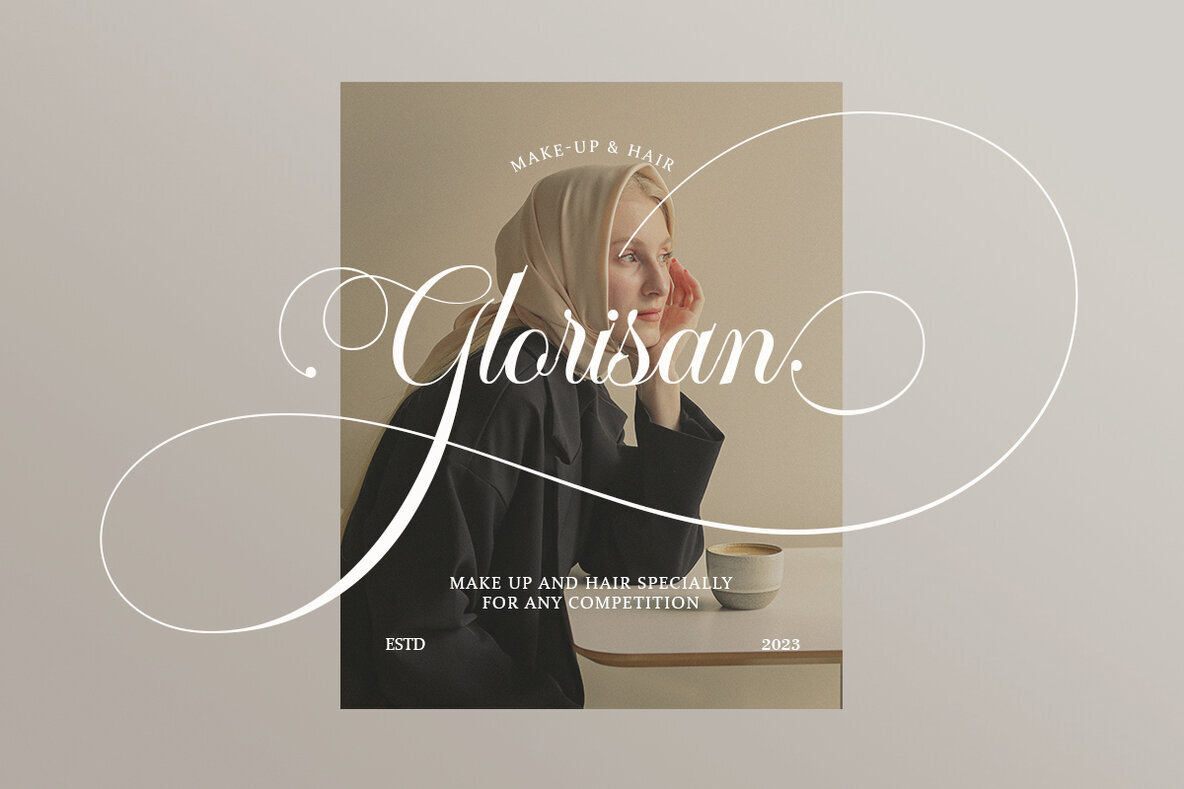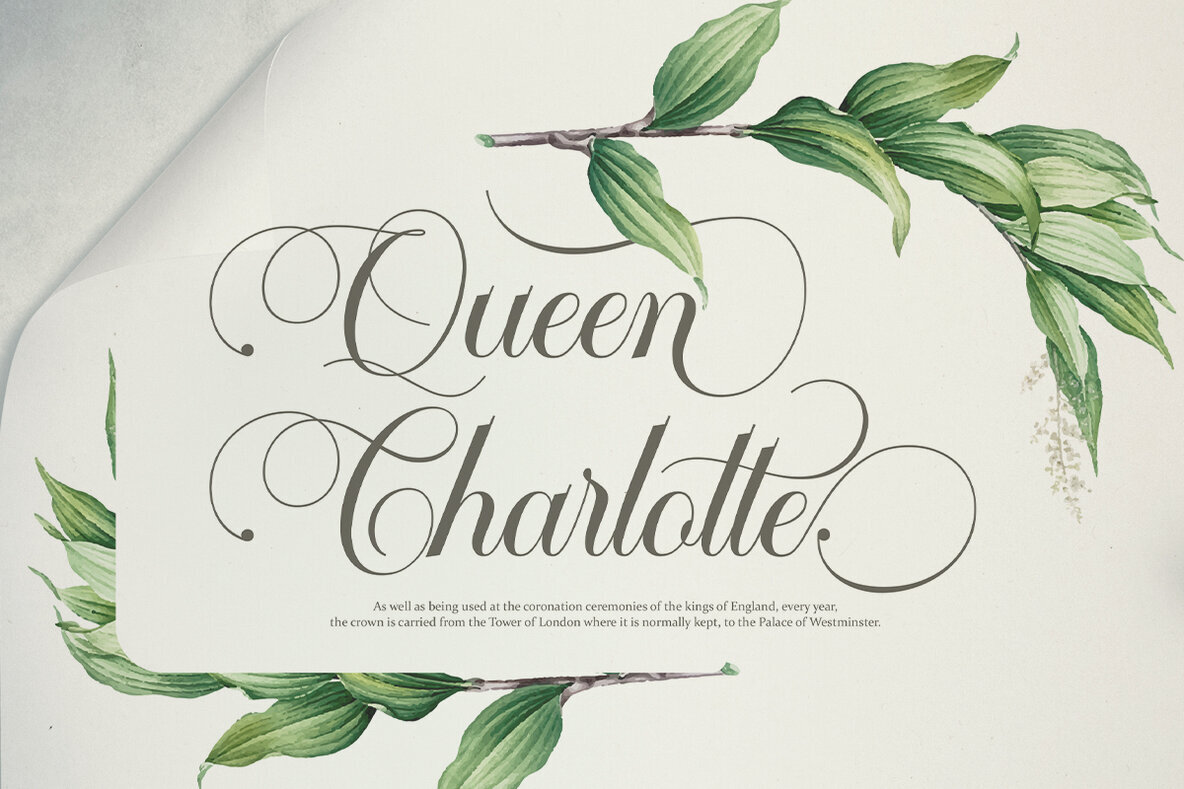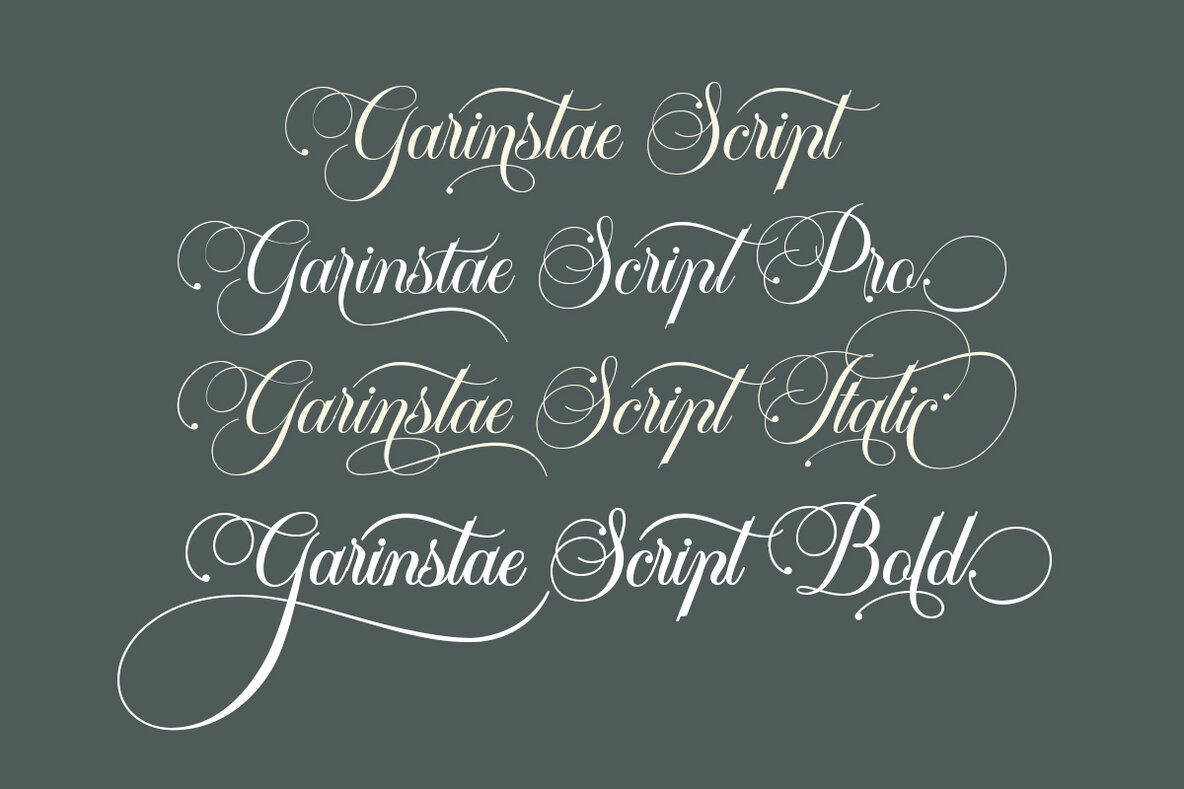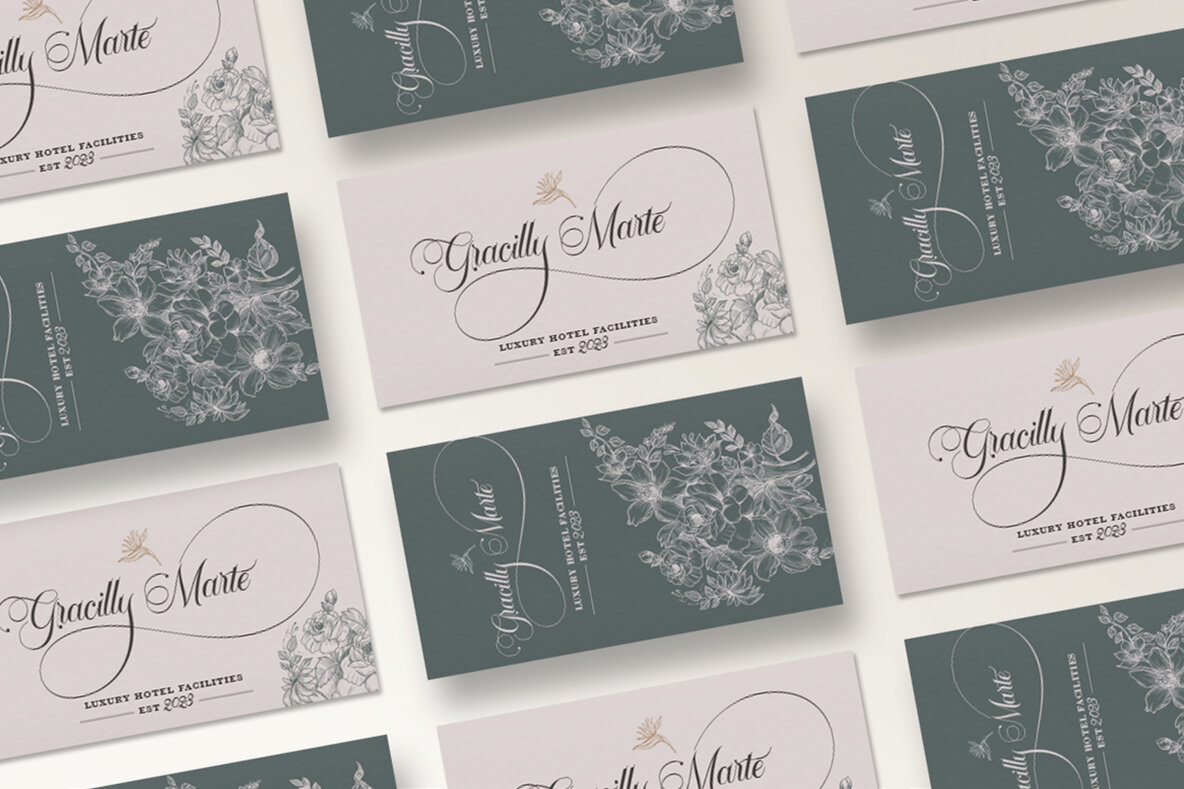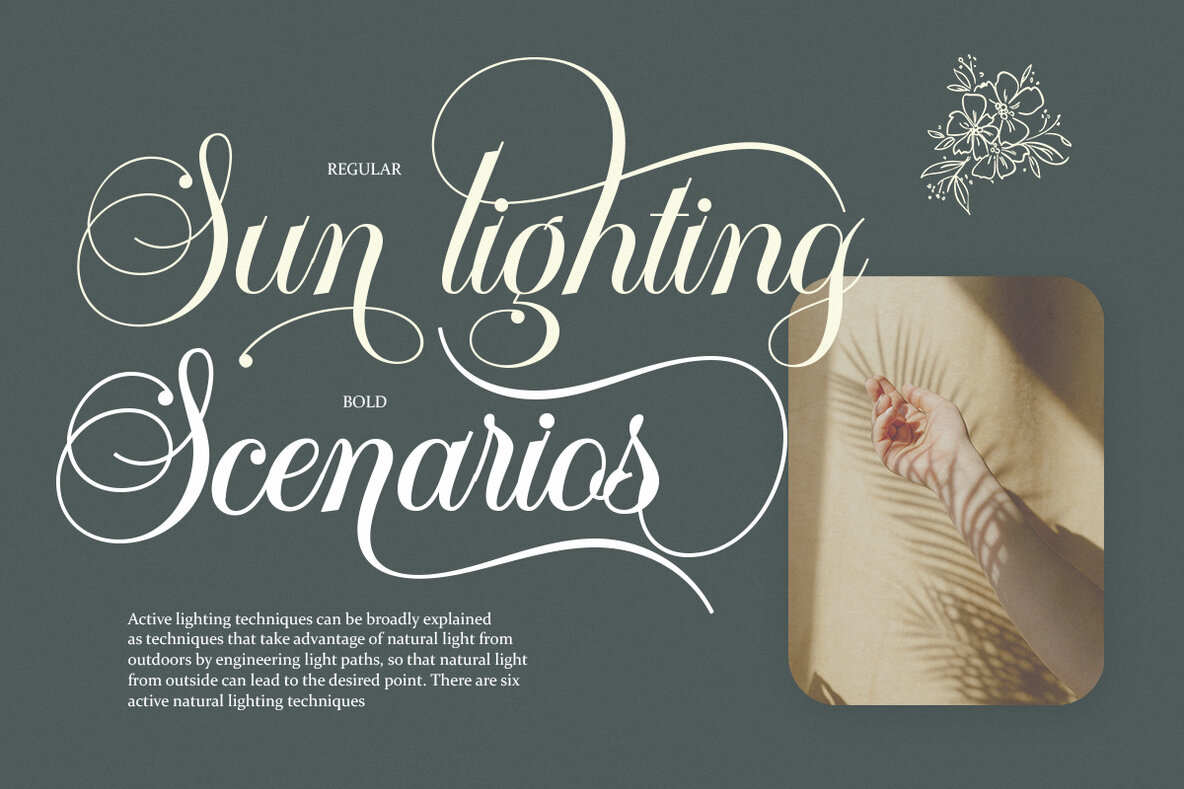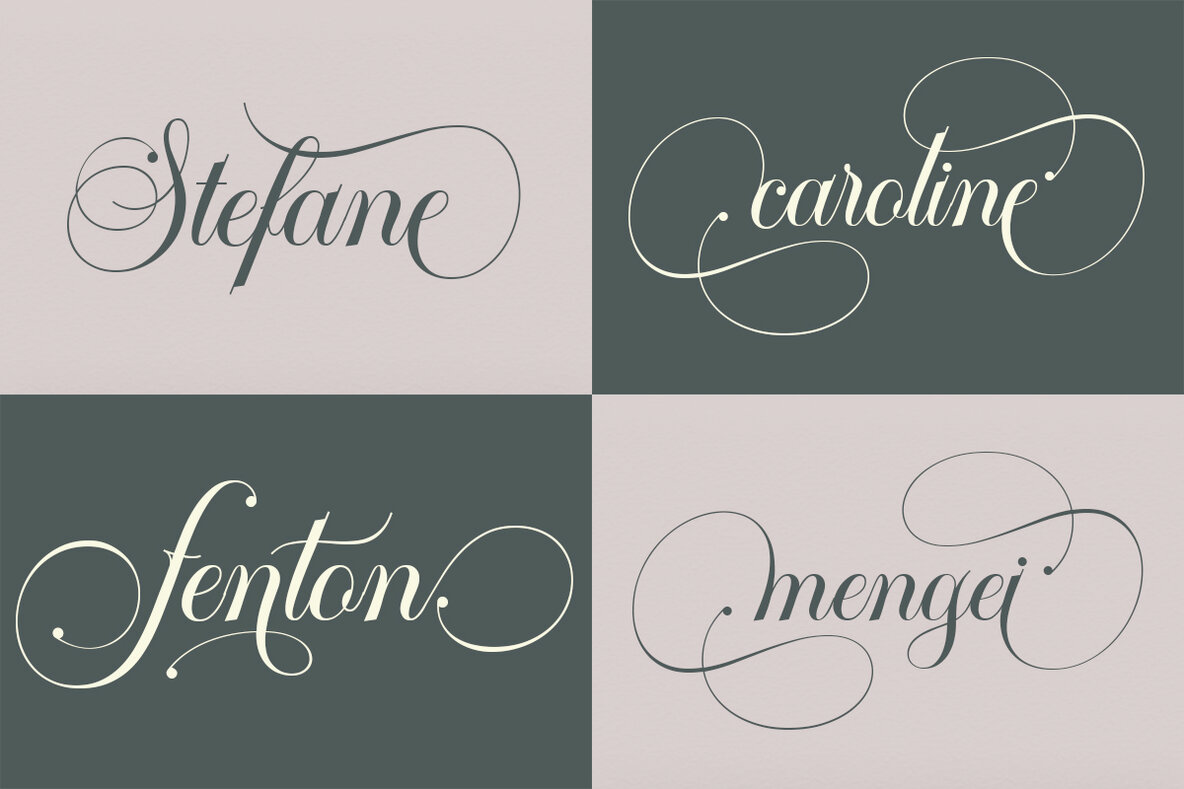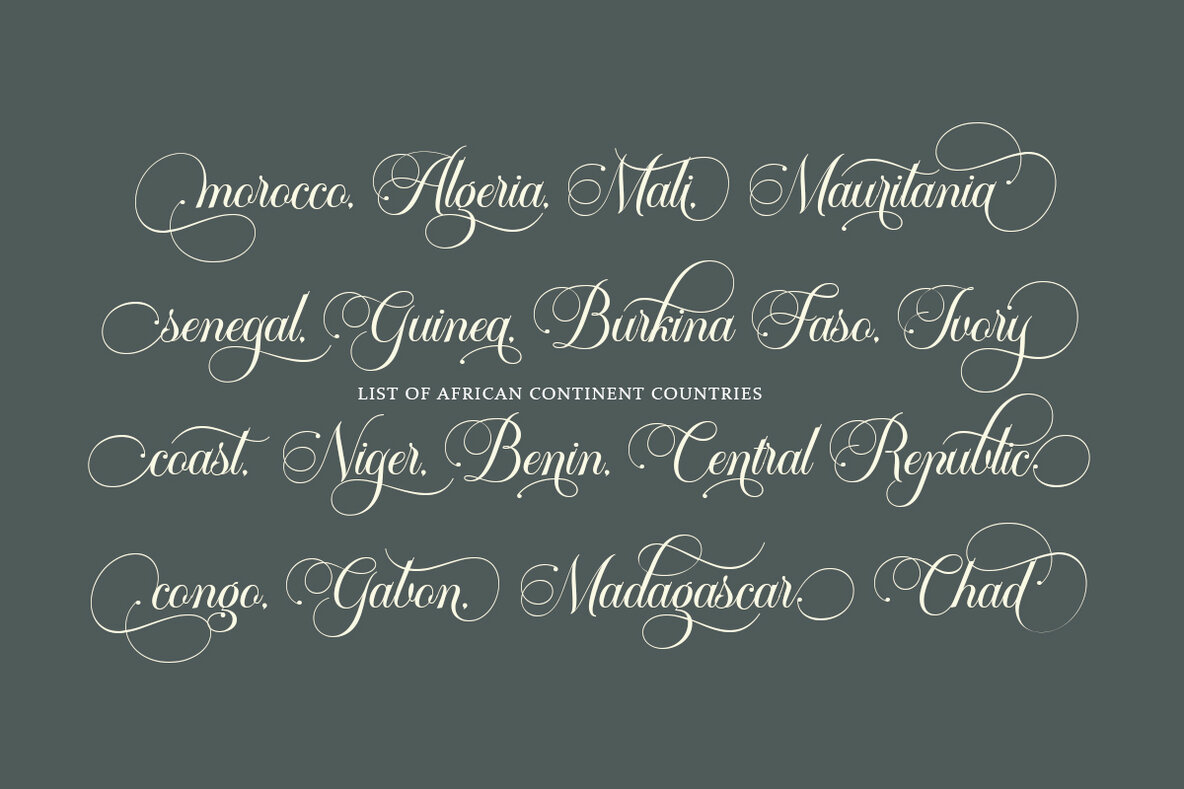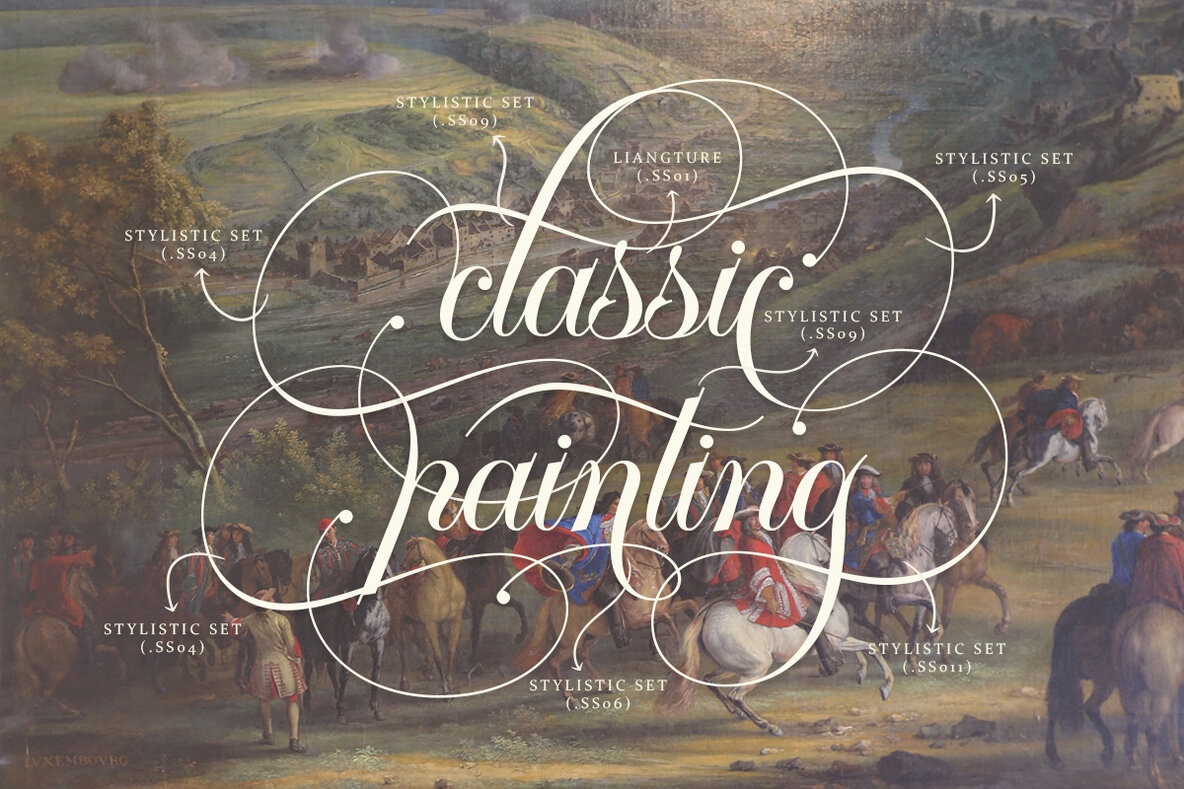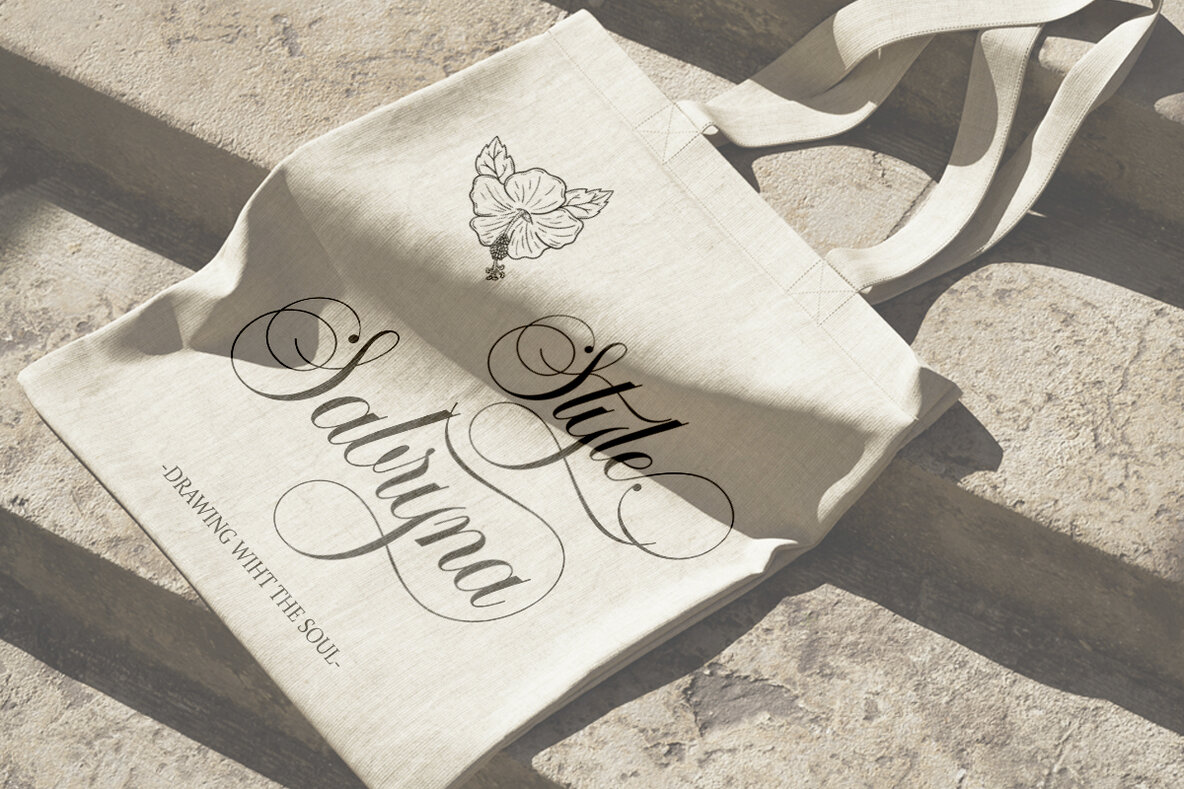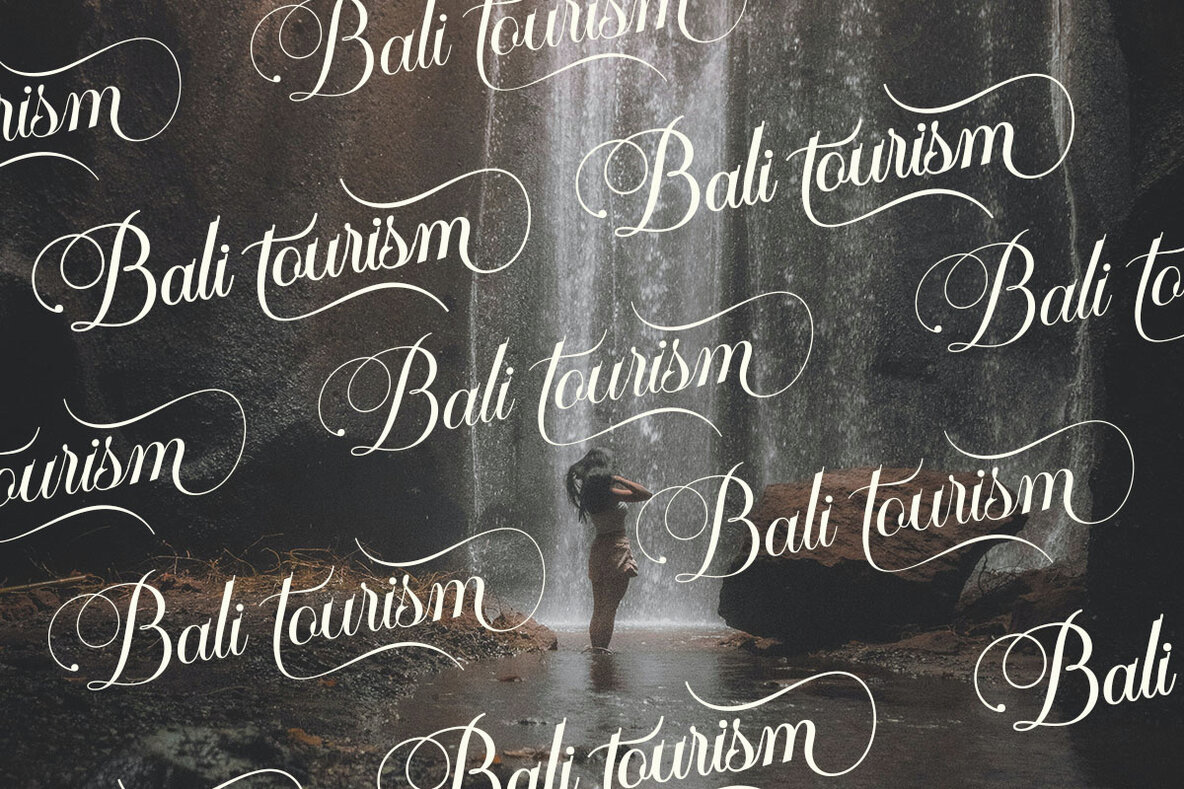
Garinstae Script, is modern and classic handwritten calligraphy, so soft, perfect for your next designs, such as logos, printed quotes, invitations, cards, product packaging, headers and anything else from your imagination.
Garinstae Script allows you to create custom dynamic text. You can access by turning on; Alternative Styles, Swashes and binders in Photoshop, Adobe Illustrator, Adobe InDesign or via the glyph panel like Adobe Illustrator, Photoshop CC, Let's go from regular characters to alternate characters to get the text with the layout of your dreams. Garinstae Script also includes glyphs, punctuation, numbers and multilingual.